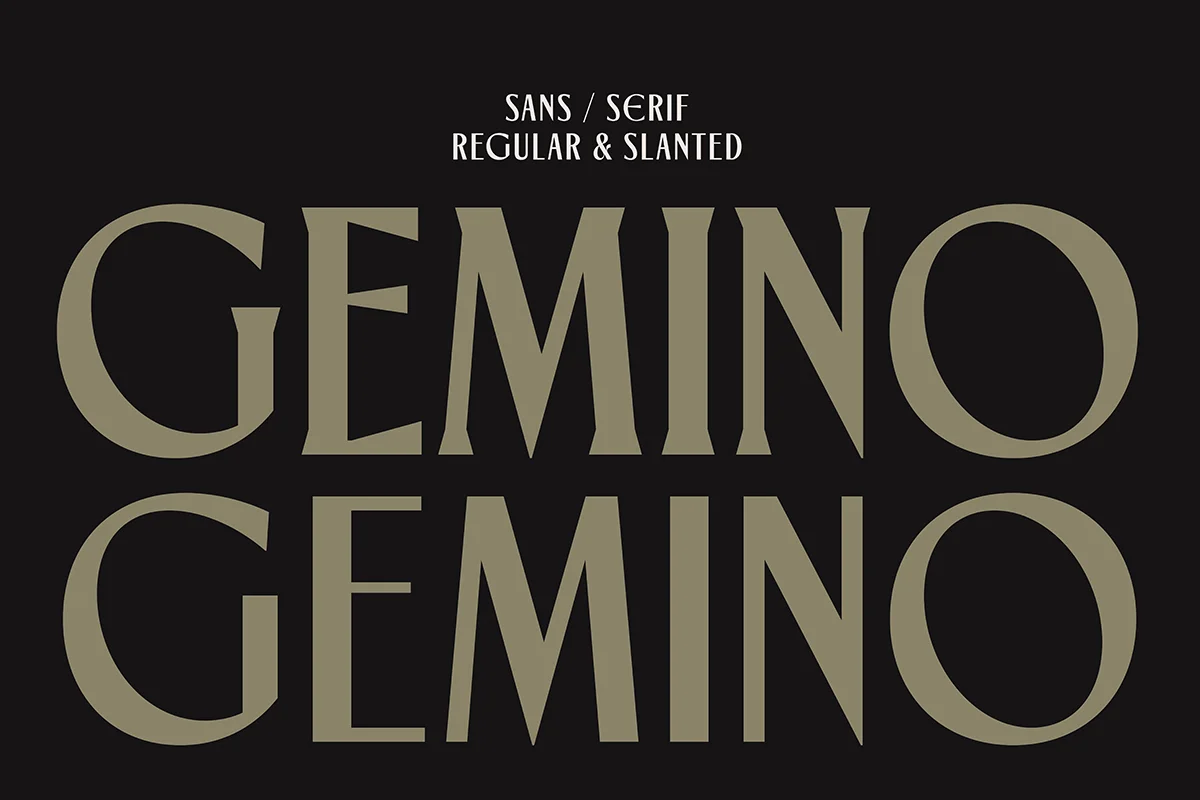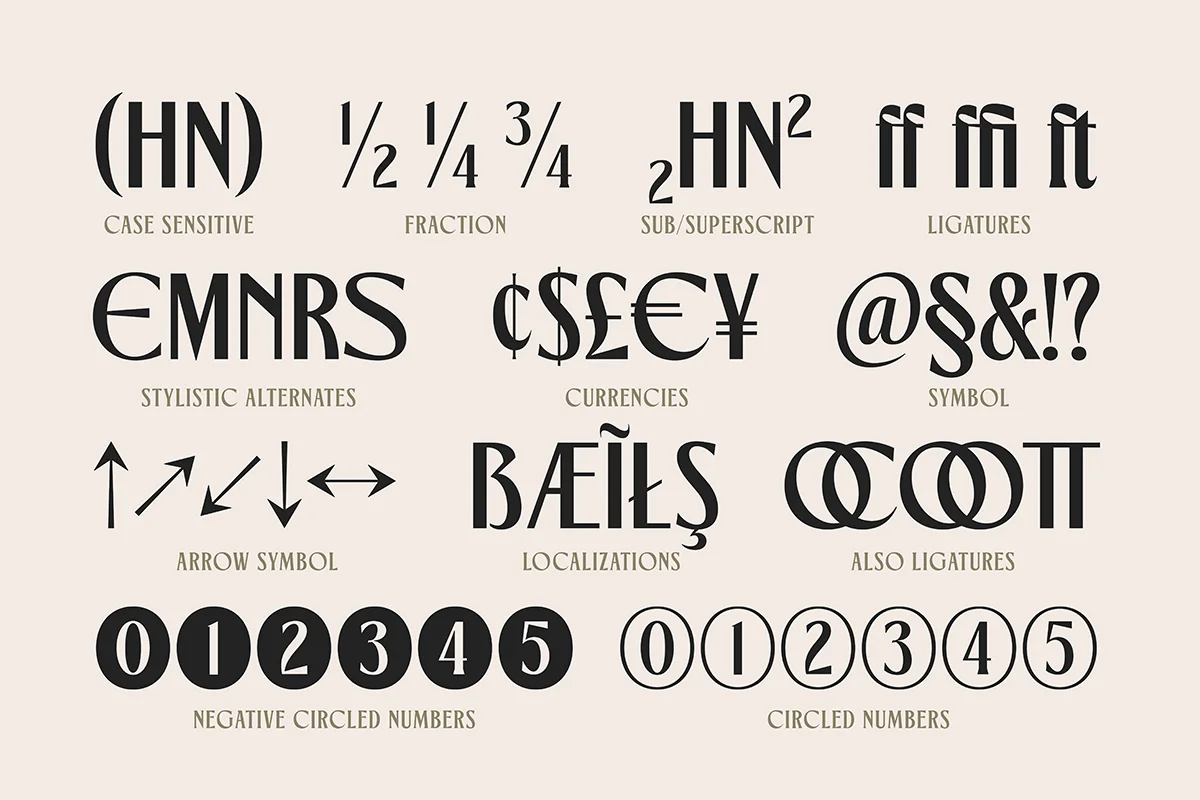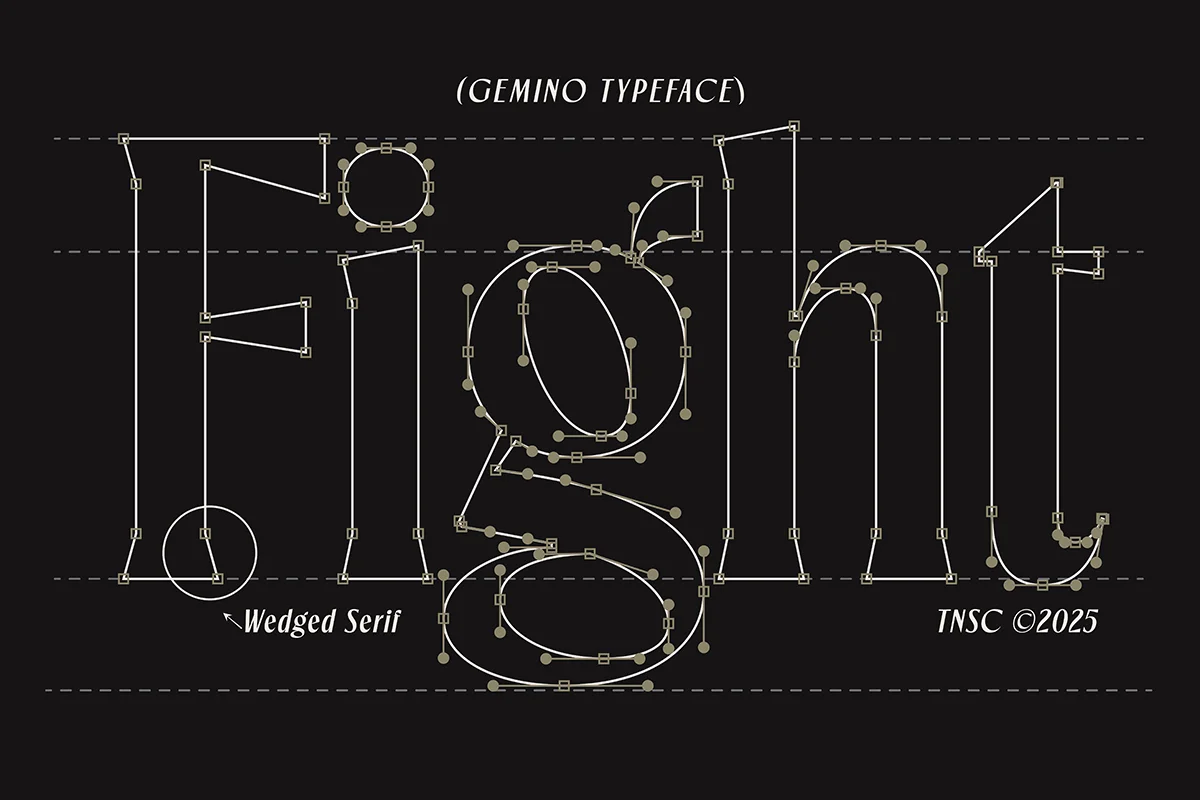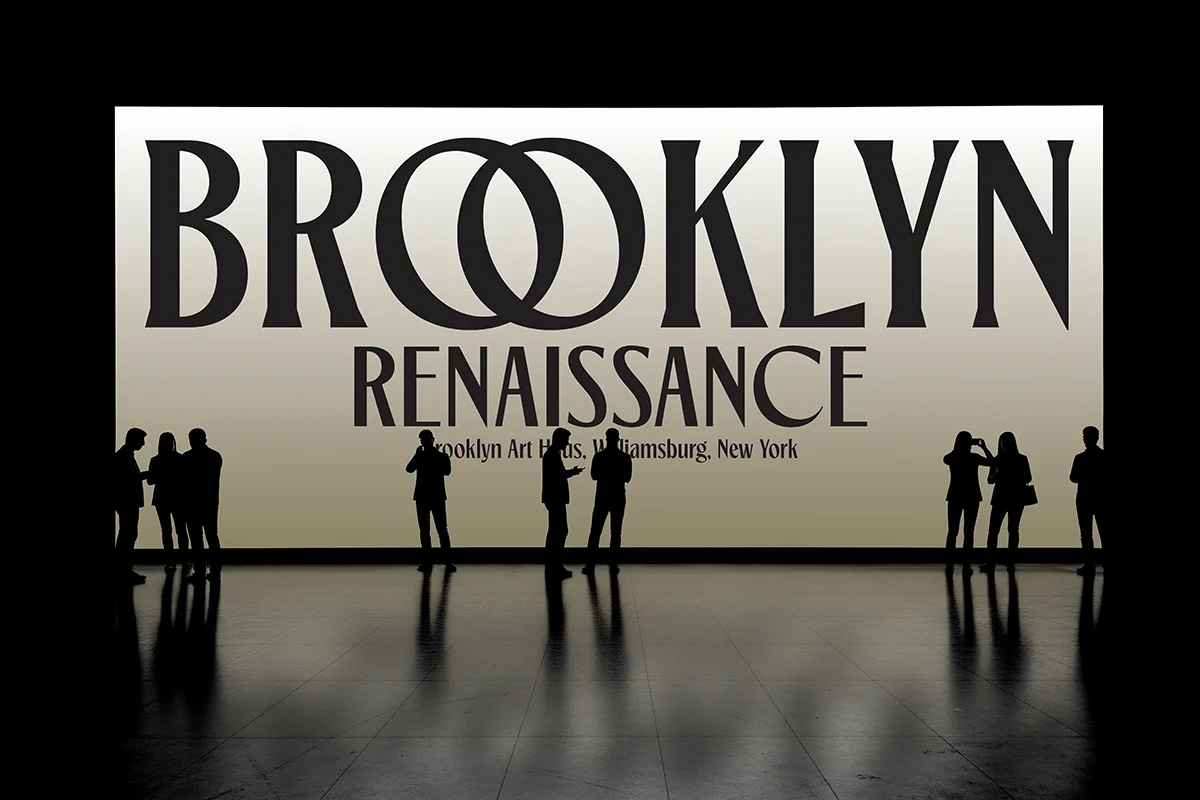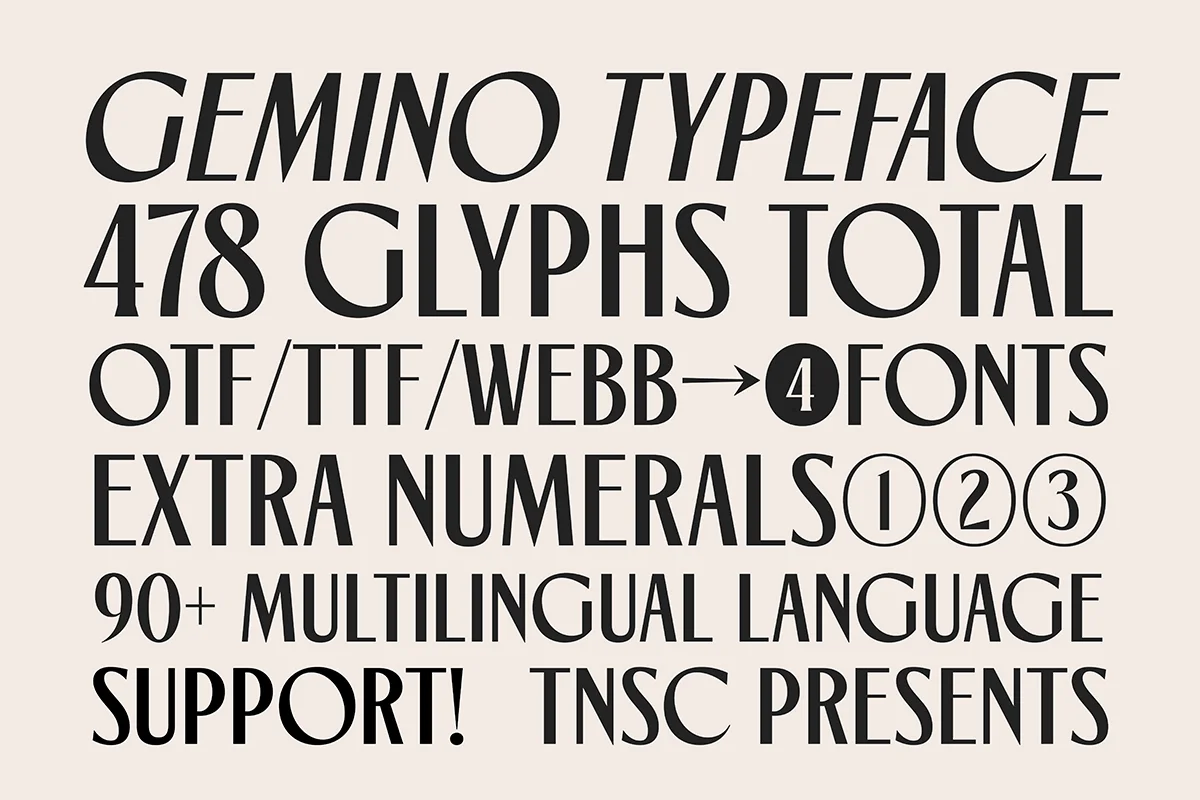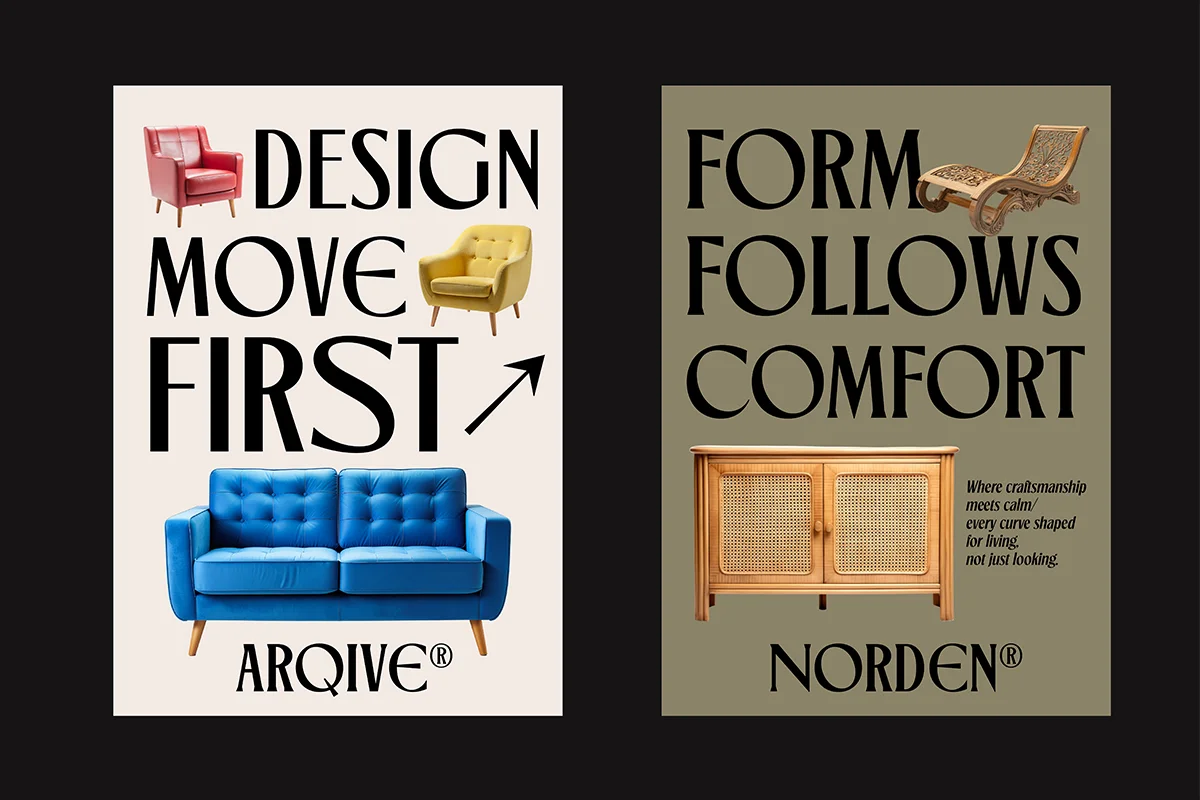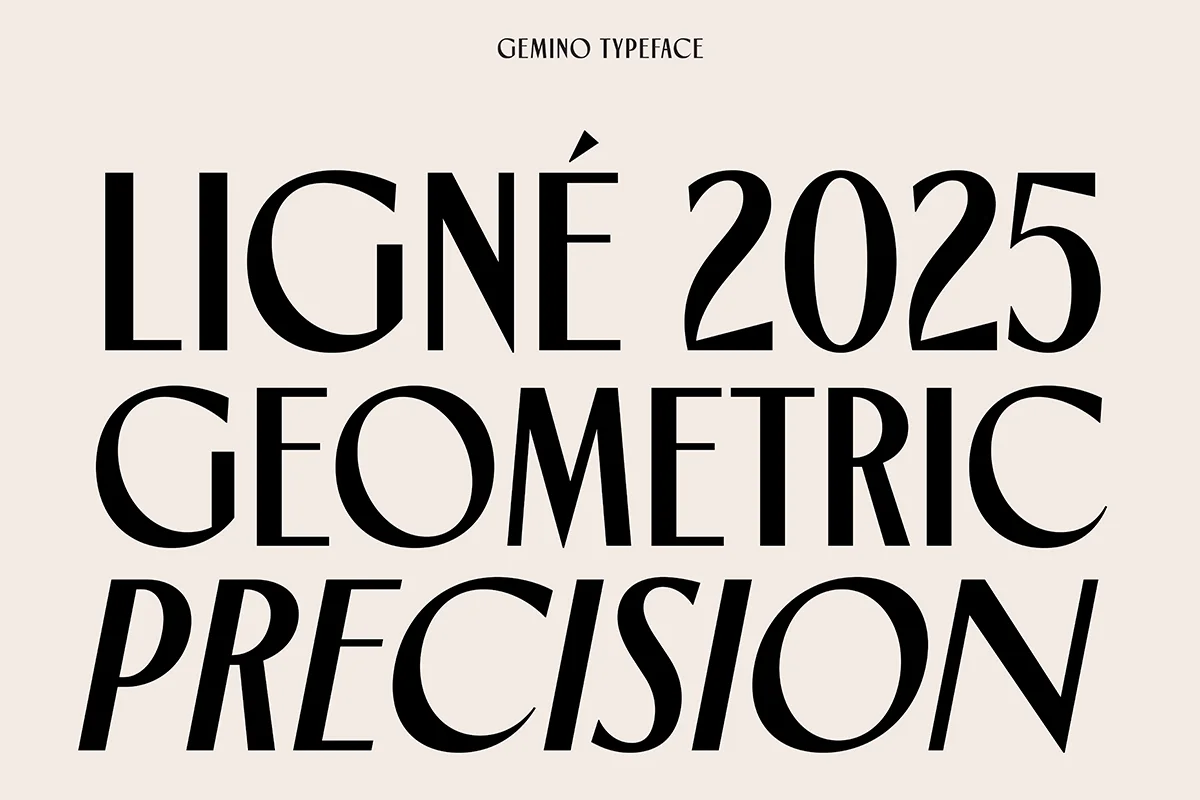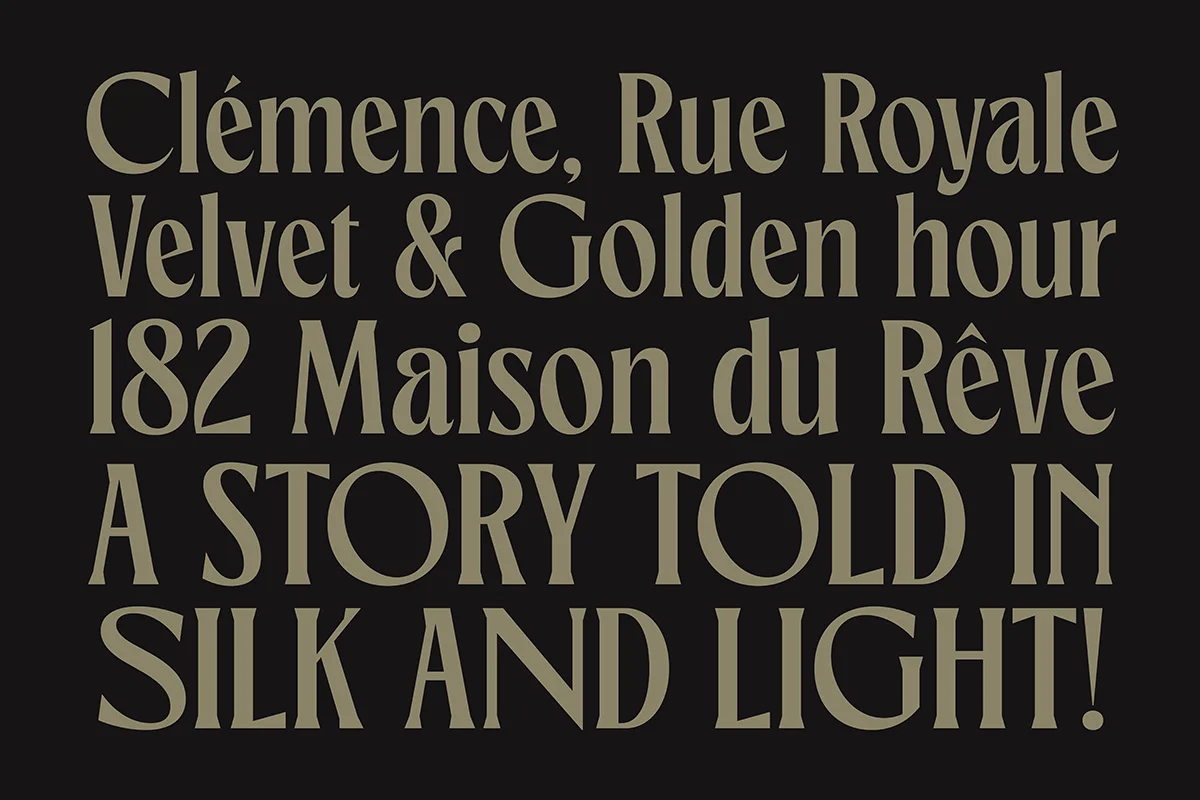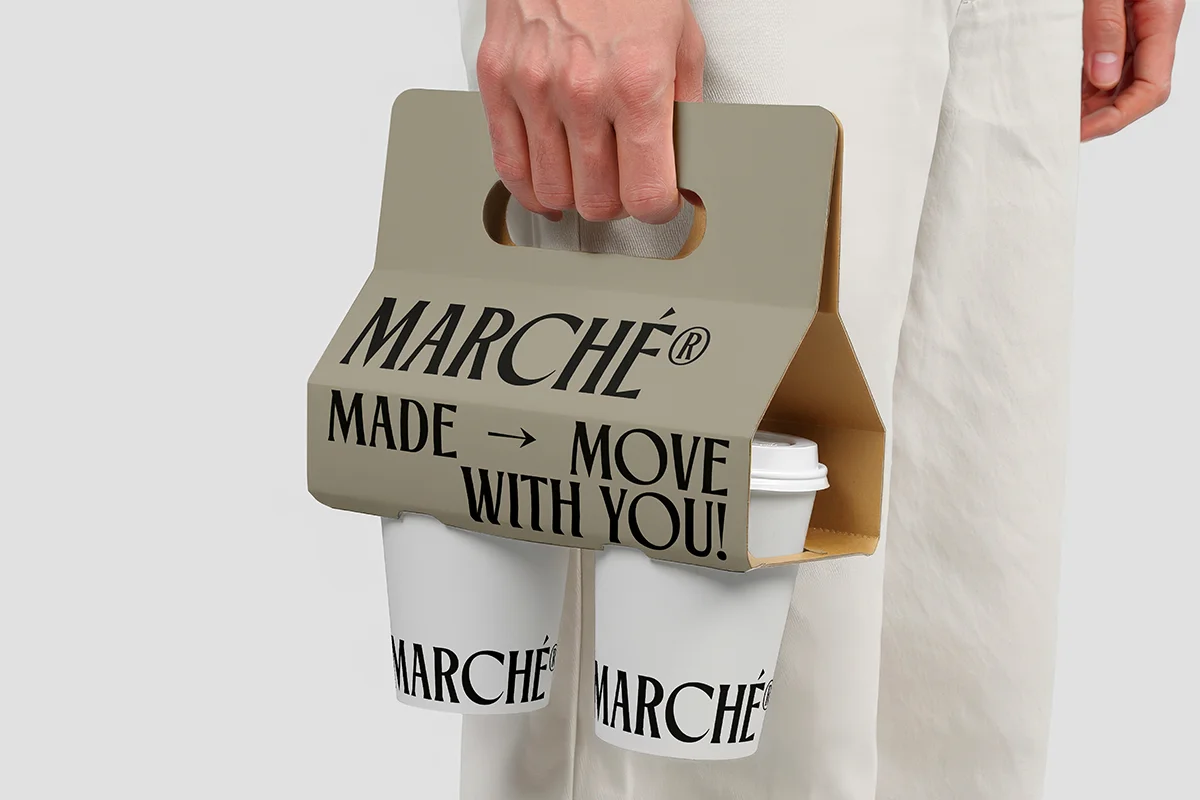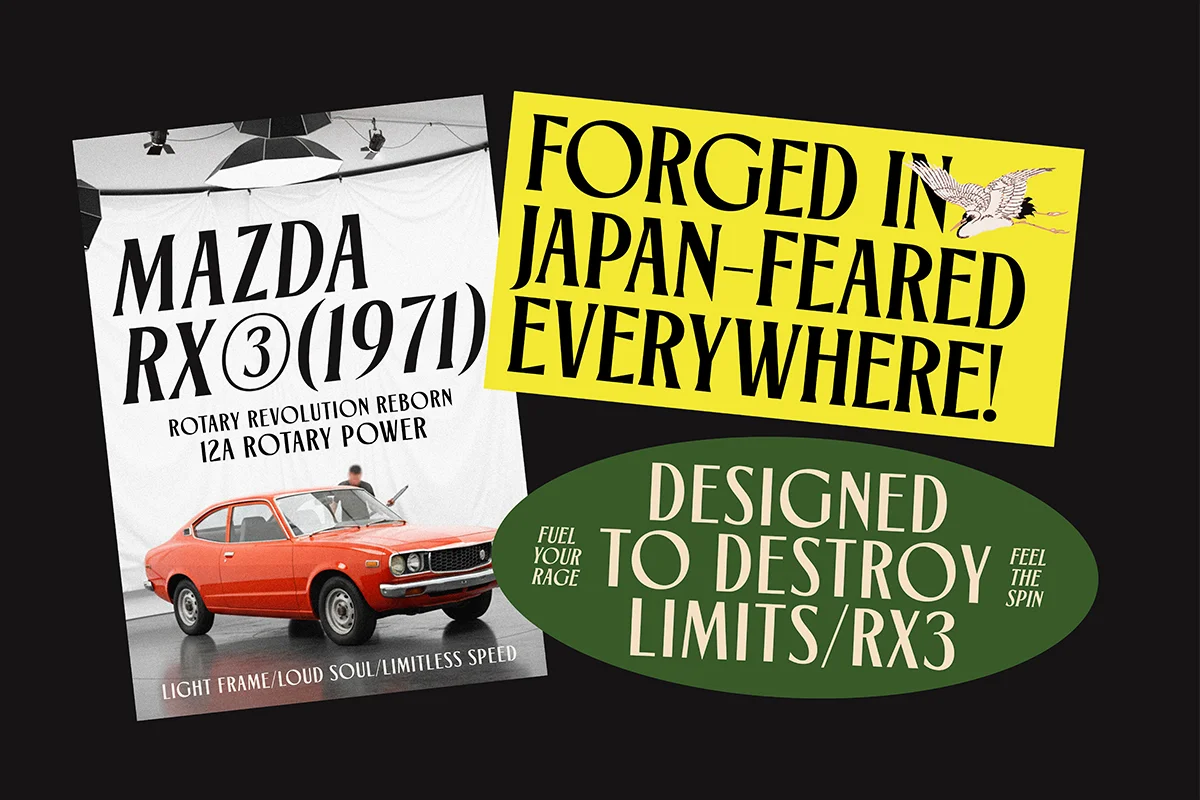
Gemino Sans & Serif Typeface
Gemino Serif
Gemino Serif Slanted
Gemino Sans
Gemino Sans Slanted
TNSC GEMINO is a modern typeface crafted with a bold editorial spirit and a refined sense of elegance.
With 478 glyphs, multilingual support, alternates, ligatures, and both Sans and Serif styles, from luxury fashion identities and magazine headlines to posters, packaging, and stylish social content, this typeface brings a polished and elevated look to any project.